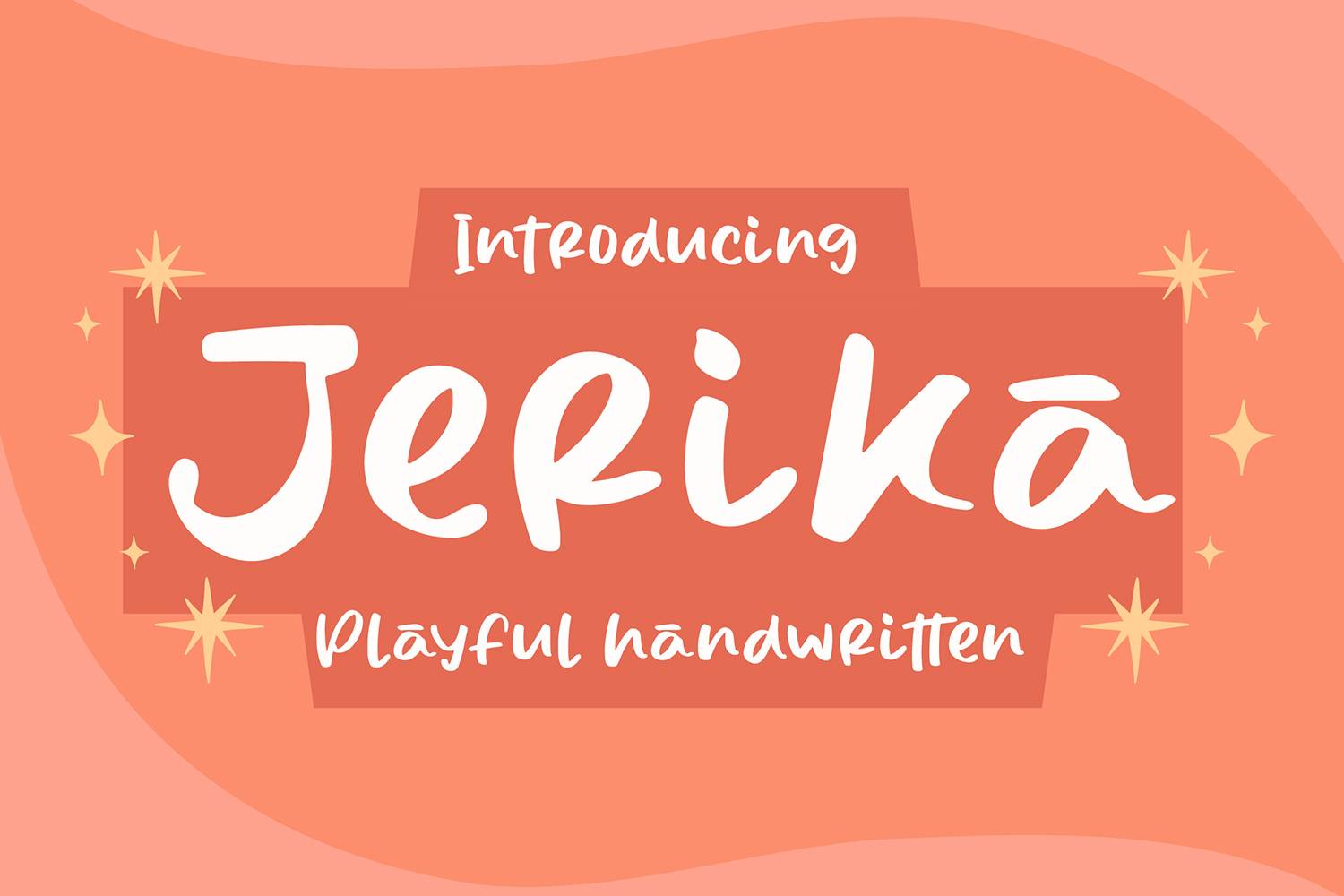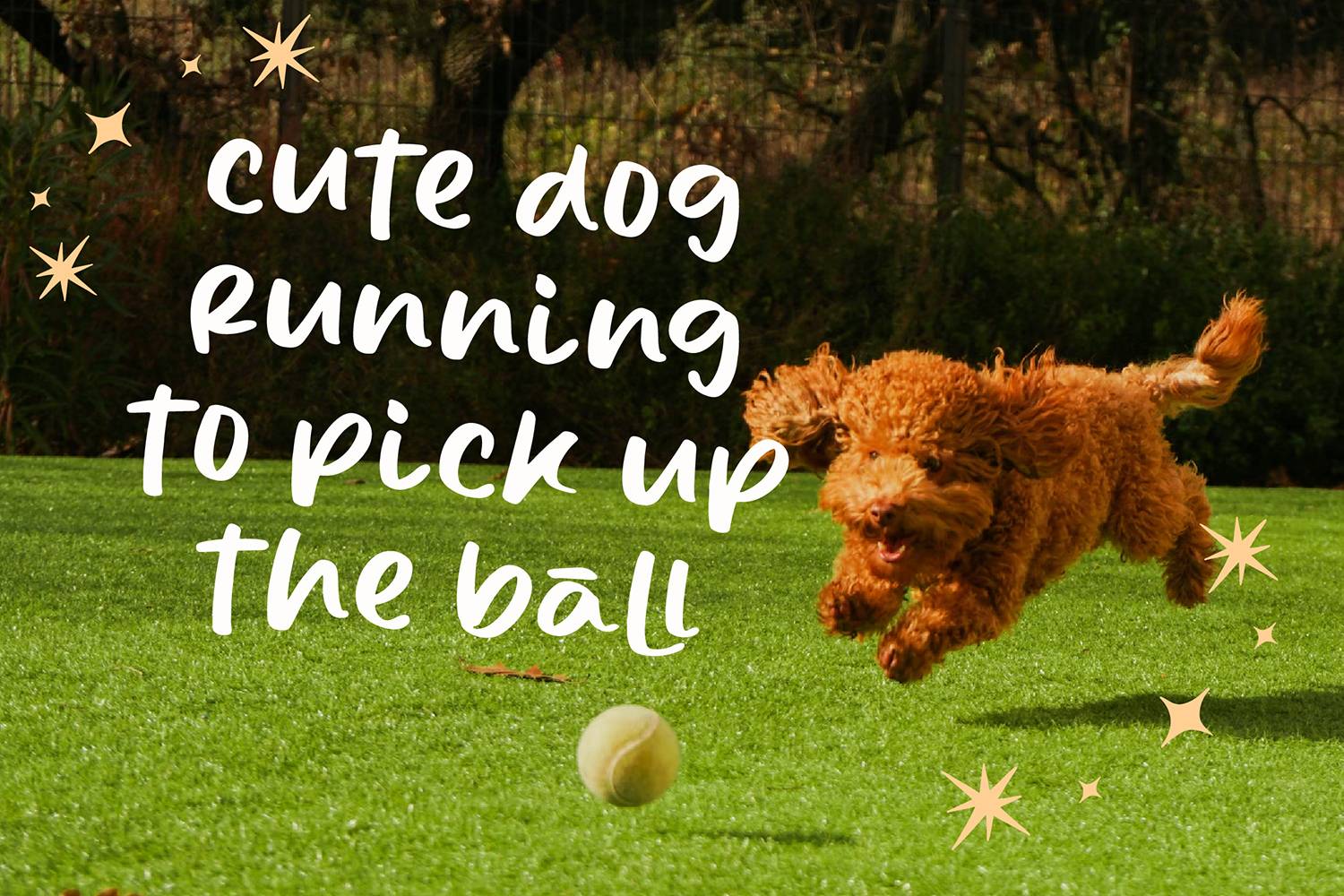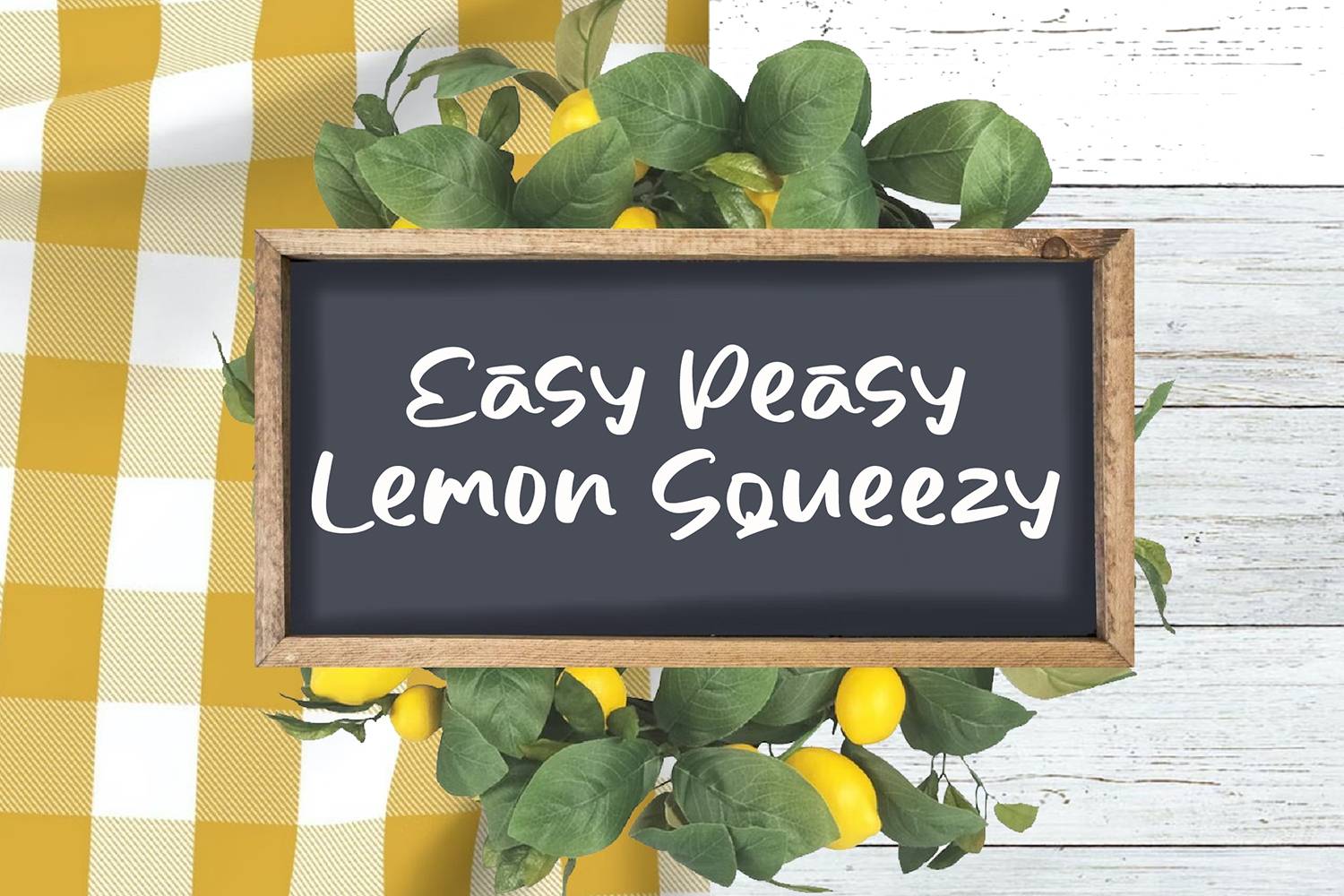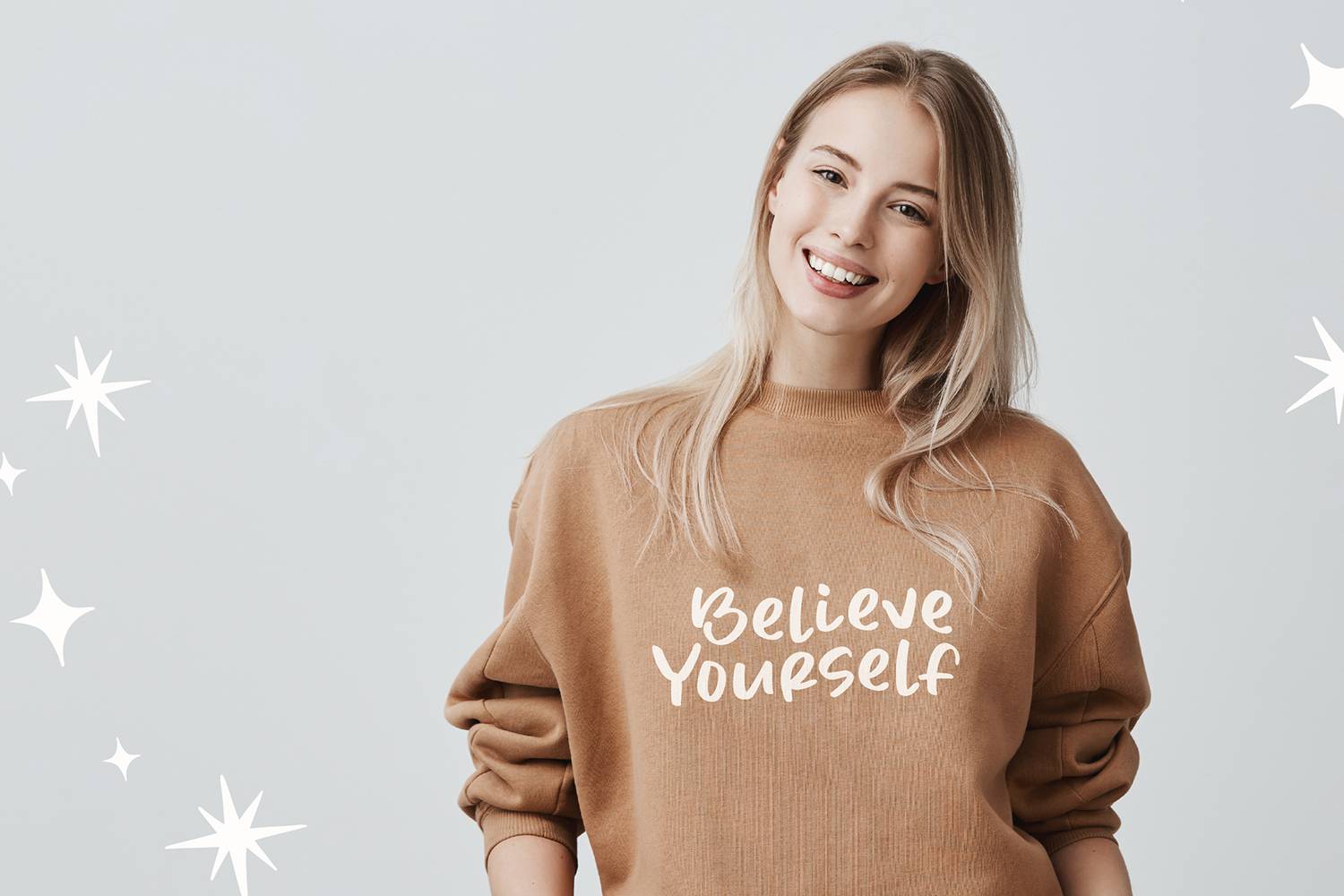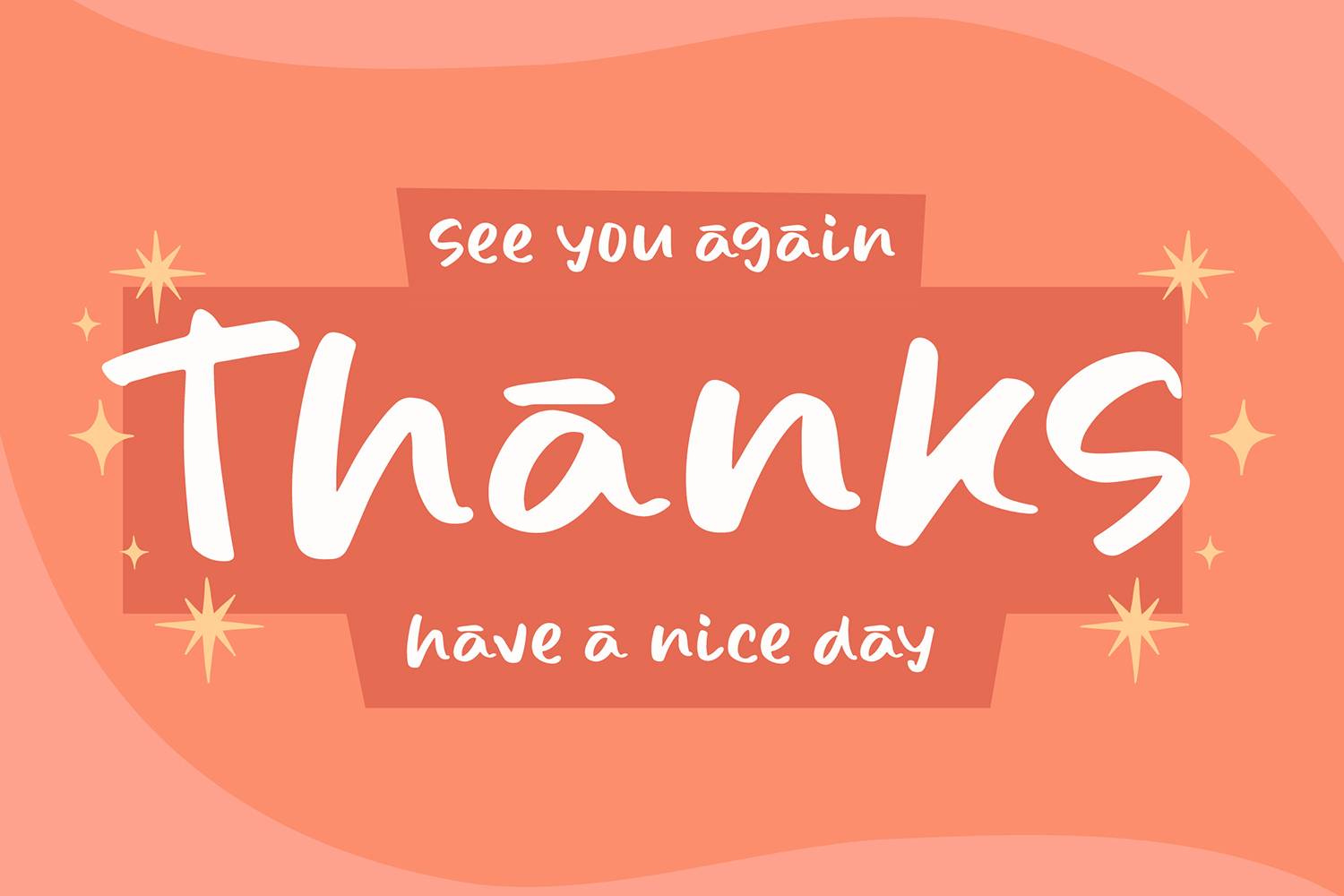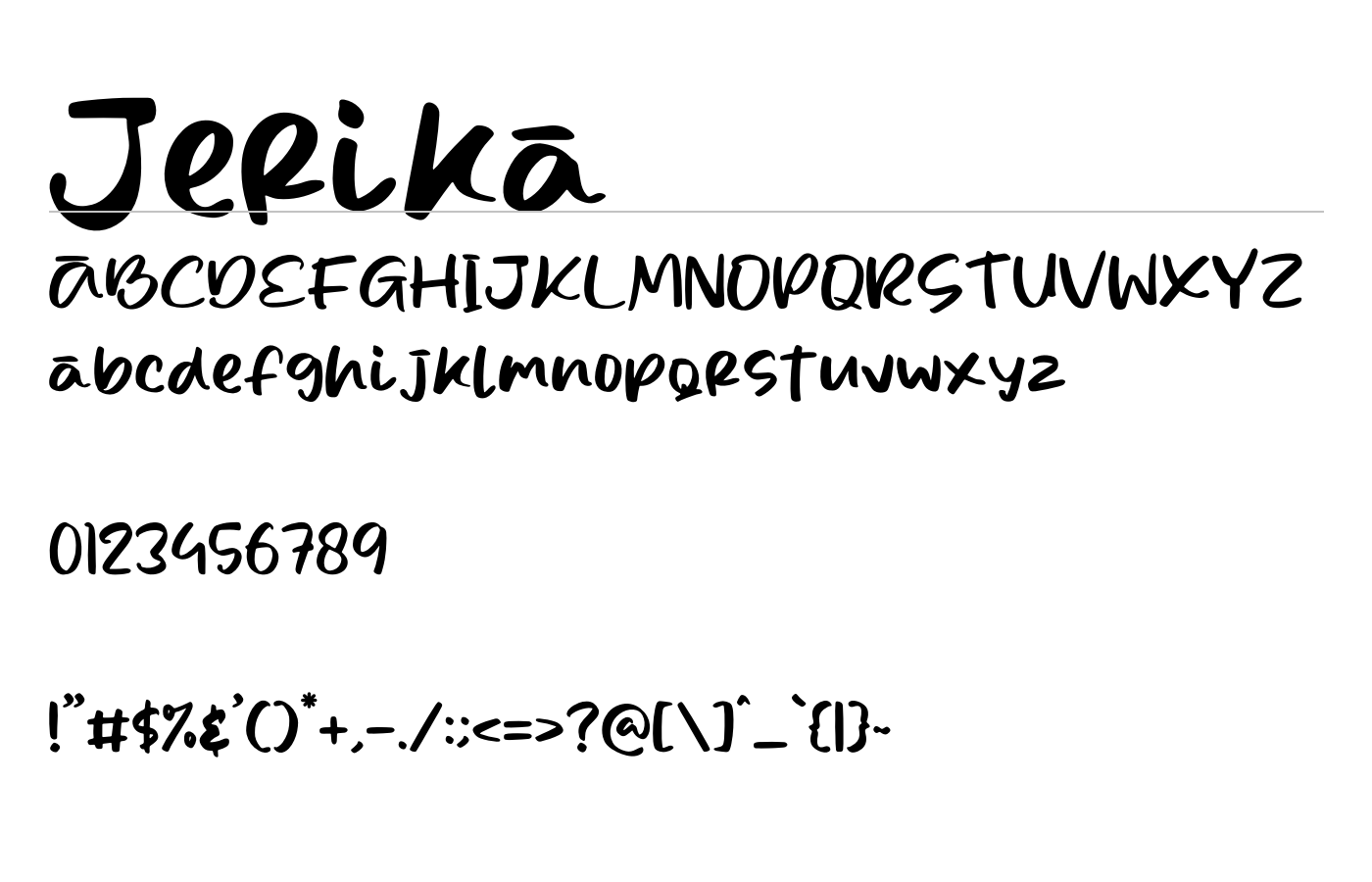
Jerika is a lively, casual handwritten font with a bold yet friendly feel, characterized by rounded, slightly uneven strokes that create a natural, personal touch. Its upright letters and generous spacing make it easy to read, ideal for projects needing an approachable and fun vibe, such as informal branding, greeting cards, or playful headlines. This font works well where a warm, hand-crafted aesthetic is desired to connect with audiences in a genuine and inviting way.
Jerika Font
About Jerika Font